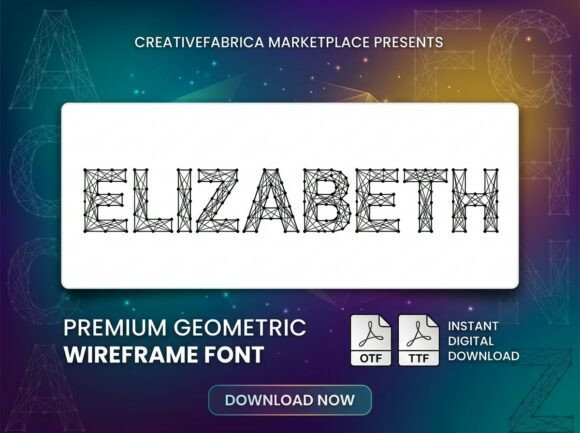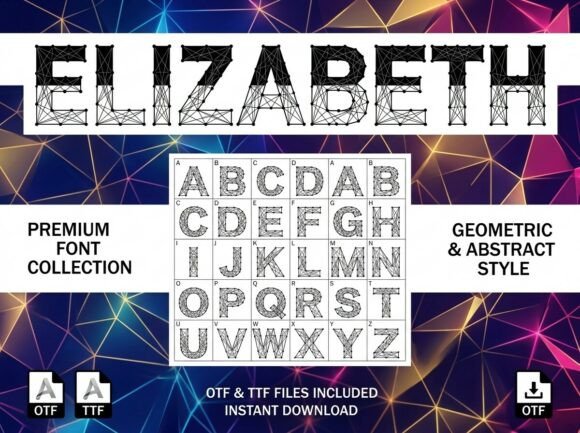
Introducing Elizabeth Font: A Stunning Decorative Display Font
Are you tired of using the same old fonts for your designs? Do you want to add a touch of elegance and sophistication to your work? Look no further than Elizabeth Font, a beautiful decorative display font that’s sure to turn heads. In this article, we’ll take a closer look at what makes Elizabeth Font so special and how you can use it to elevate your designs.
Elizabeth Font is a stunning decorative display font designed to be the center of attention. With its unique artistic elements and strong visual personality, this font is perfect for creators who want to break away from the ordinary. Whether you’re working on a bold headline, artistic logo, or creative packaging, Elizabeth Font is the perfect choice.
Key Features of Elizabeth Font
- Unique Artistic Elements: Elizabeth Font features intricate and artistic elements that set it apart from other fonts. Each letter is carefully crafted to make a statement.
- Strong Visual Personality: This font has a strong visual personality that’s sure to grab attention. It’s perfect for designs where you want to make a bold statement.
- Versatile: Despite its decorative nature, Elizabeth Font is versatile enough for use in a variety of design projects, from bold headlines to artistic logos and creative packaging.
- Professional and Polished Finish: Elizabeth Font maintains a professional and polished finish, making it suitable for use in high-end designs.
How to Use Elizabeth Font
Elizabeth Font is perfect for a variety of design projects, including:
- Headlines: Use Elizabeth Font to create bold and eye-catching headlines that grab attention.
- Logos: Create stunning logos that showcase your brand’s personality with Elizabeth Font.
- Packaging: Add a touch of elegance to your packaging designs with Elizabeth Font.
- Signage: Use Elizabeth Font to create eye-catching signage that stands out.
Tips for Working with Elizabeth Font
Here are a few tips for getting the most out of Elizabeth Font:
- Use it sparingly: Elizabeth Font is a decorative font that’s meant to be used sparingly. Use it for headlines, logos, or other design elements where you want to make a statement.
- Pair it with a simple font: Pair Elizabeth Font with a simple font to create contrast and make your design more visually appealing.
- Experiment with colors: Elizabeth Font looks great in a variety of colors. Experiment with different colors to find the one that works best for your design.
| Font Name | Elizabeth Font |
| Author | pavel |
Elizabeth Font is a stunning decorative display font that’s perfect for creators who want to add a touch of elegance and sophistication to their designs. With its unique artistic elements, strong visual personality, and versatility, this font is sure to turn heads. Whether you’re working on a bold headline, artistic logo, or creative packaging, Elizabeth Font is the perfect choice.